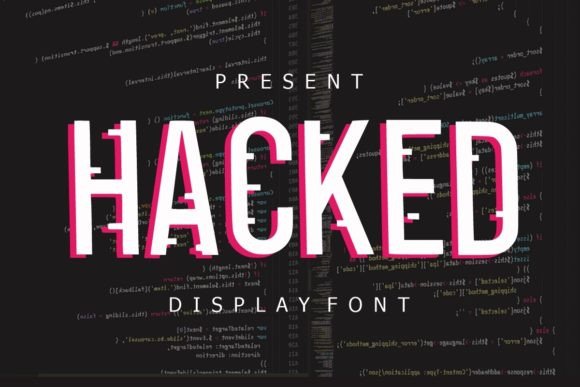
Introducing Hacked Font: The Ultimate Display Font for a Striking Visual Impact
Dive into the world of captivating typography with Hacked Font, the bold and dynamic display font designed to make your headlines and designs stand out. Let your creativity run wild as you explore a font that embodies both power and elegance, perfectly suited for a wide range of design projects.
Hacked Font: A Masterpiece of Boldness and Grace
Hacked Font is a testament to the artistry of Infinity Art Studio, a renowned font foundry that consistently pushes the boundaries of creativity. This font is a true masterpiece, meticulously crafted to deliver a distinctive and unforgettable visual experience. Its dynamic effect and unique charm add an extra layer of depth and intrigue to your designs, making them truly captivating.
Unleash Your Creativity with Hacked Font
Hacked Font's versatility knows no bounds. Whether you're designing sports posters, logos, monogram designs, or automotive posters, this font will elevate your work to new heights. Its bold presence commands attention, making it the perfect choice for headlines that demand impact.
The Perfect Fit for Beige Backgrounds
Hacked Font's carefully chosen color palette harmonizes seamlessly with beige backgrounds, creating a visually striking contrast that enhances the overall impact of your designs. The result is a sophisticated and eye-catching aesthetic that resonates with modern sensibilities.
A Font That Speaks Volumes
Hacked Font is more than just a font; it's a powerful tool that empowers you to communicate your message with flair and impact. Its bold strokes convey a sense of confidence and determination, while its unique design elements add a touch of intrigue and mystery. Let Hacked Font amplify your words and make them resonate with your audience.
Experience the Hacked Font Difference
Immerse yourself in the world of Hacked Font and discover a new level of creative expression. Whether you're a seasoned designer or just starting your design journey, this font will ignite your imagination and inspire you to create truly remarkable designs. Download Hacked Font today and witness the transformative power of a font that's designed to make a statement.